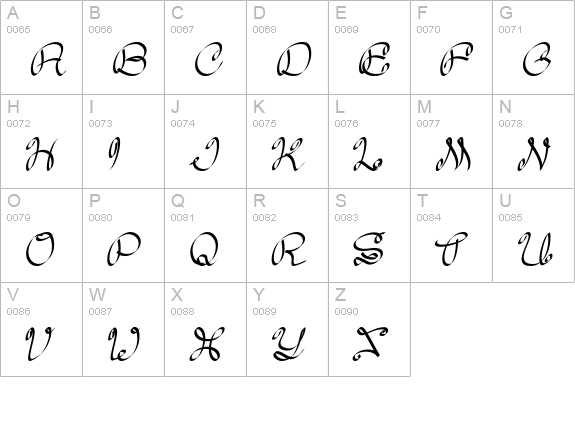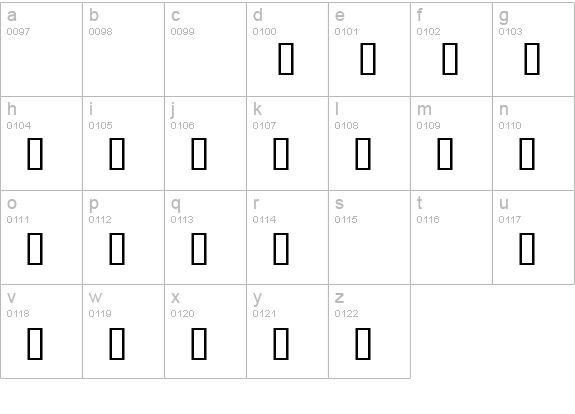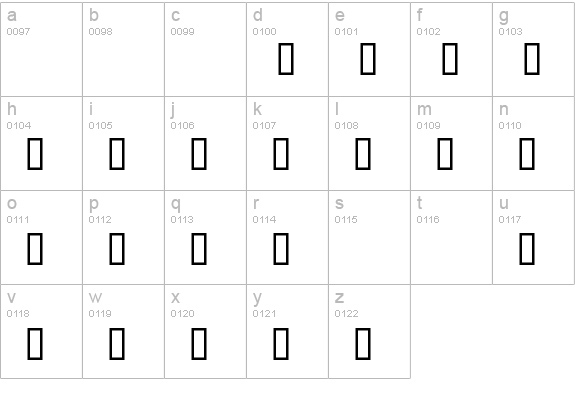
Daisy Font Details
Introducing Daisy font, a delightful and charming typeface that will instantly bring a touch of elegance to your designs. With its graceful curves and delicate strokes, Daisy font is perfect for adding a feminine and sophisticated feel to any project. Crafted with care and attention to detail, this font captures the essence of a daisy flower, exuding a sense of purity and innocence. Its clean and modern aesthetic makes it versatile and suitable for a wide range of applications, from wedding invitations and greeting cards to logos and branding projects. But what truly sets Daisy font apart is its accessibility - it is completely free to download at FontsMarket.com. Whether you are a professional designer or a hobbyist, this font is available for everyone to enjoy and use in their creative endeavors. With Daisy font, you can effortlessly add a touch of beauty and grace to your designs without breaking the bank. So why wait? Visit FontsMarket.com today and embark on a journey of creativity with this stunning font that is just a click away.